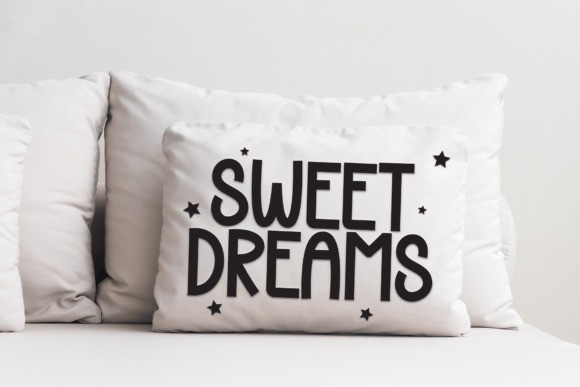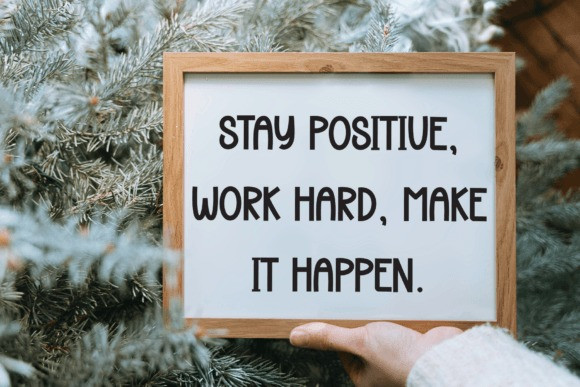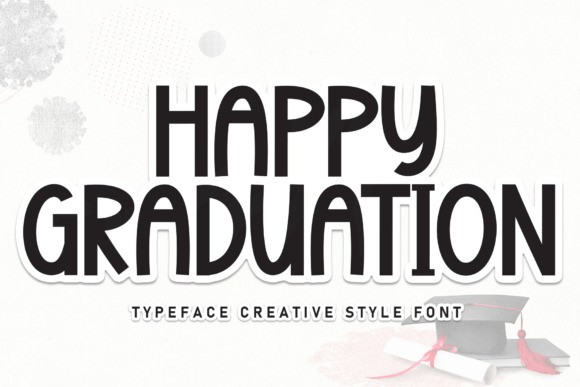
Happy Graduation Playful Font
Happy Graduation Playful Font is a sweet and friendly handwritten font. Its natural and unique style makes it incredibly fitting to a large pool of designs. The only limit is your imagination!